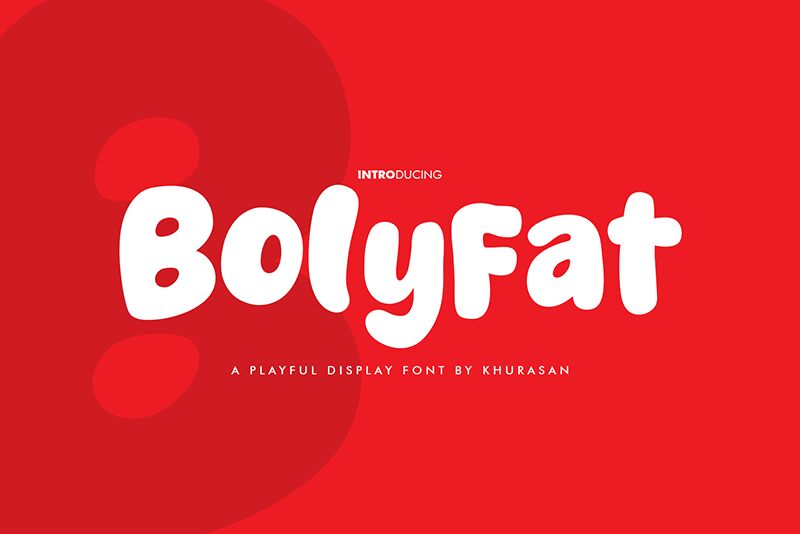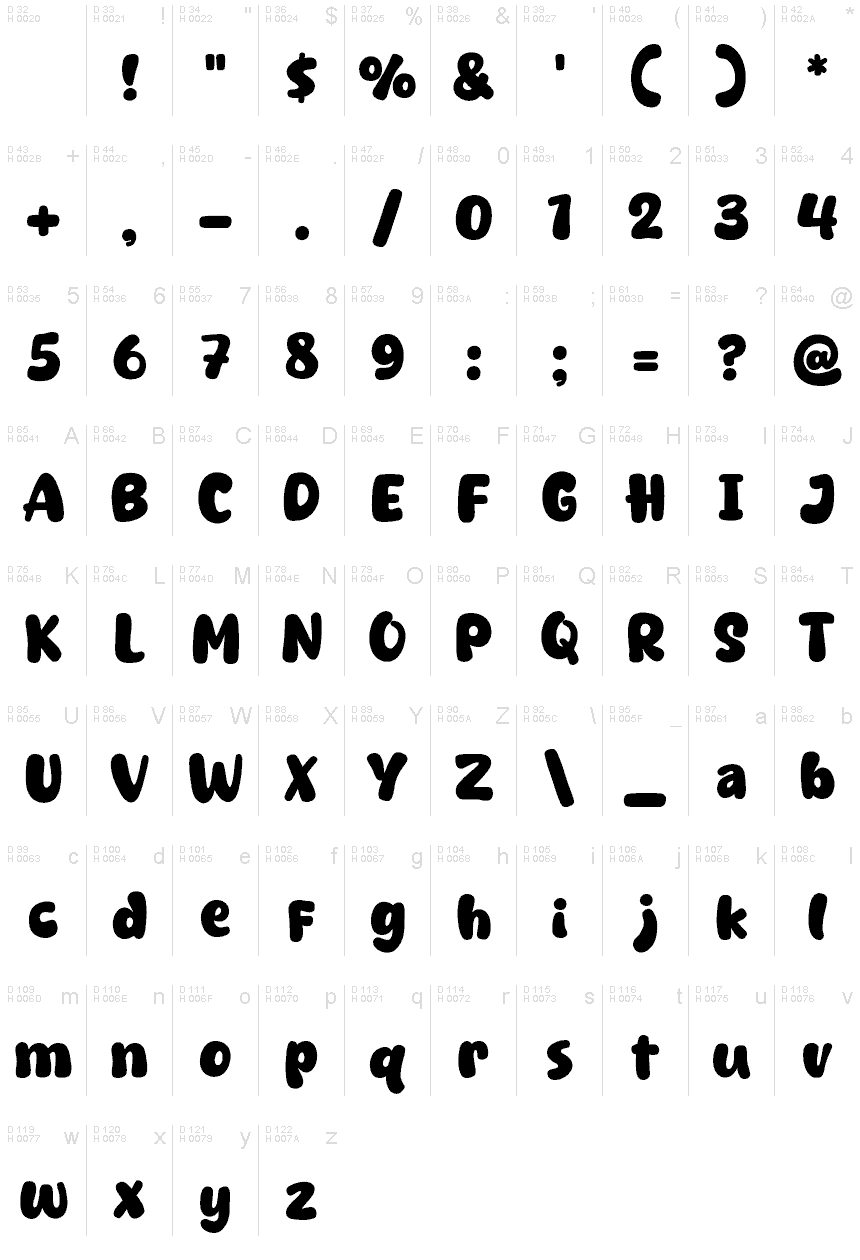
Bolyfat
Bolyfat font is a cartoon display font designed by Khurasan to bring playfulness and fun to your design projects. As one of the chunkier free fonts, it’s very distinguishable by all characters having a round, friendly, and contemporary feel. Pack your order with this unique bold typeface that will take your branding project to another level.
Decorate flyers, posters, and brochures for businesses or events that target teenagers. Use it within packaging labels for children’s food products or clothing lines. Design kids’ birthday party invitation cards in an attractive manner. Use it in logos, banners, games (board & video), animations among many other possible uses.